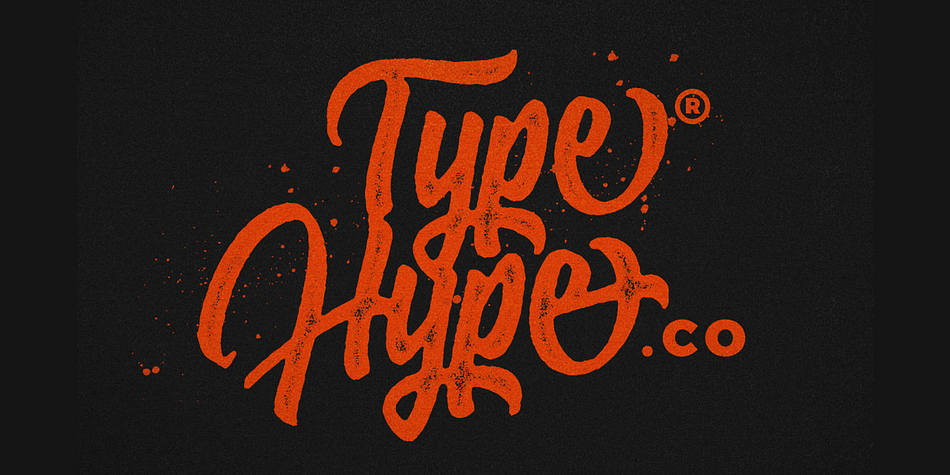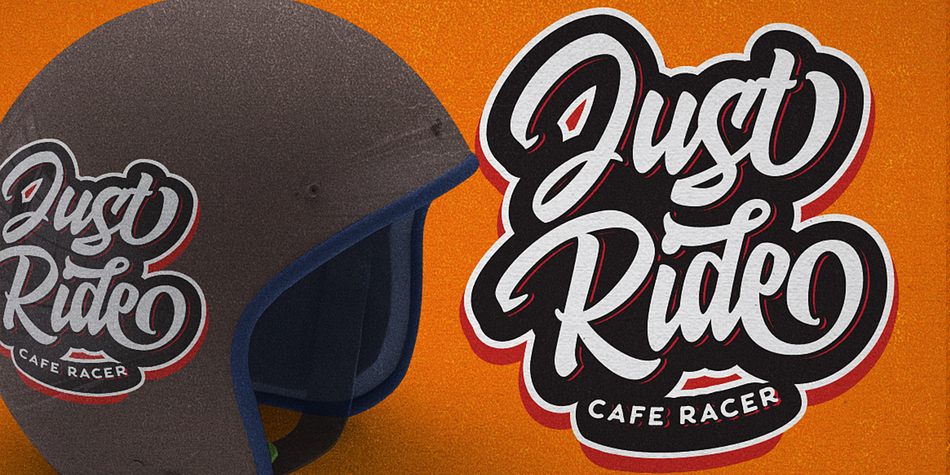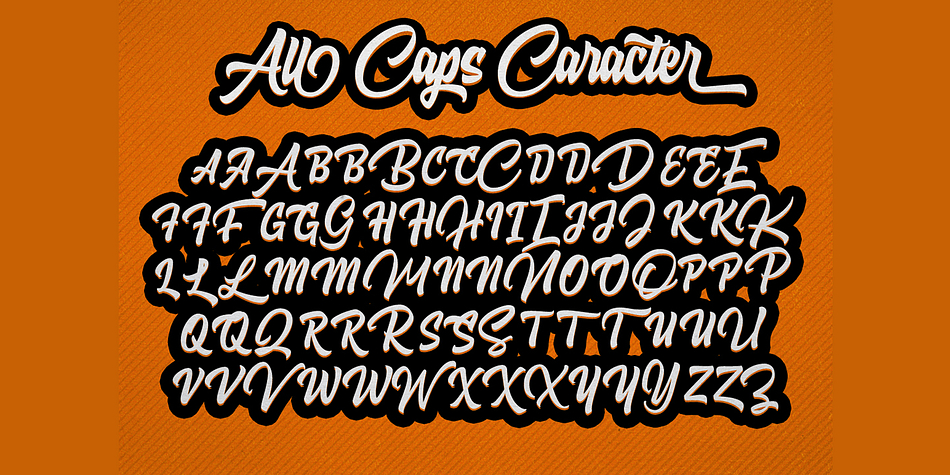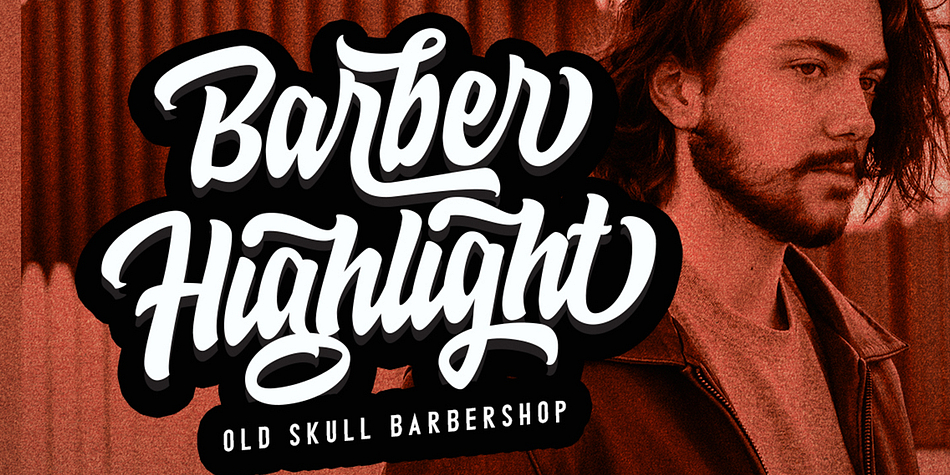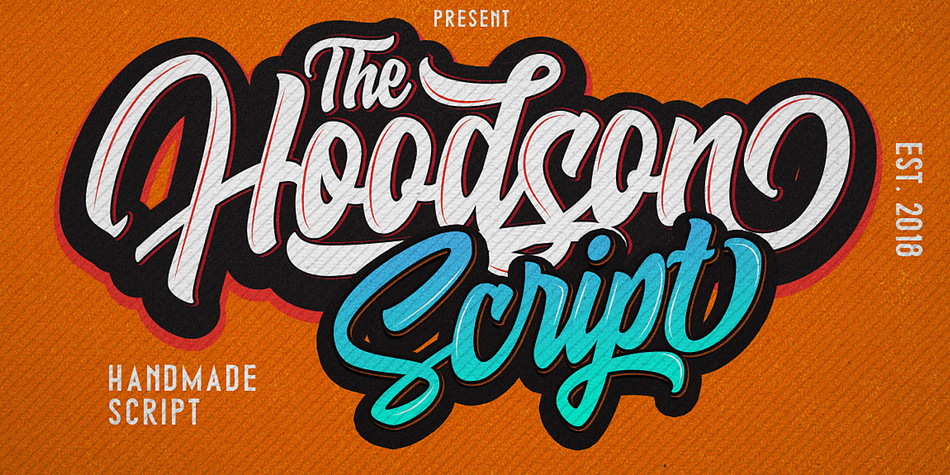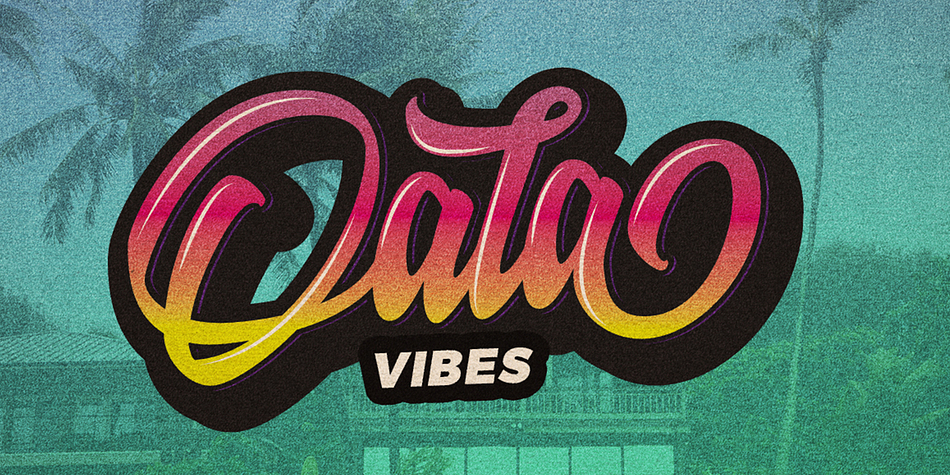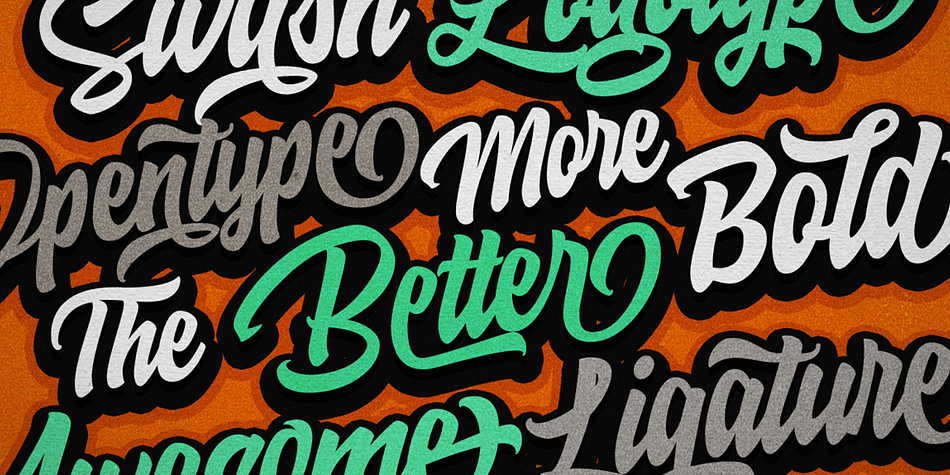
Hoodson Script is a dingbat and brush script font family. This typeface has four styles and was published by Dirtyline Studio.
Hoodson Script Inspired by Retro style and combination with Hand Lettering style. I’m made with personality touch every single curve. I hope this can make inspire you from your work. and a very bouncy baseline It has a perfectly paired complimentary marker font , and a super handy set of bonus Swash. Ideal for logos, handwritten quotes, product packaging, header, poster, merchandise, social media & greeting cards.